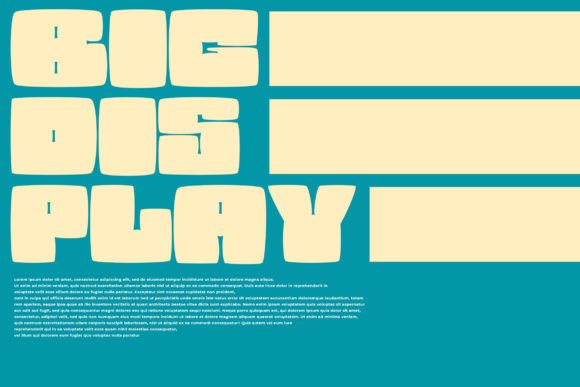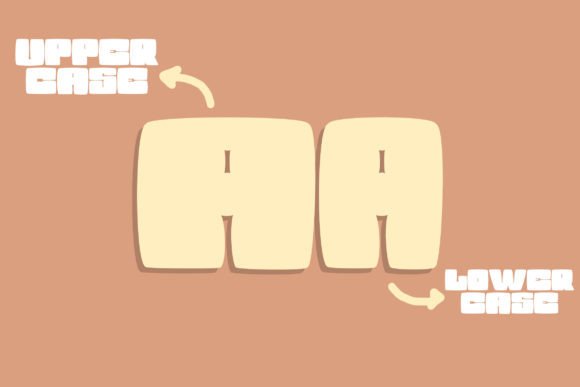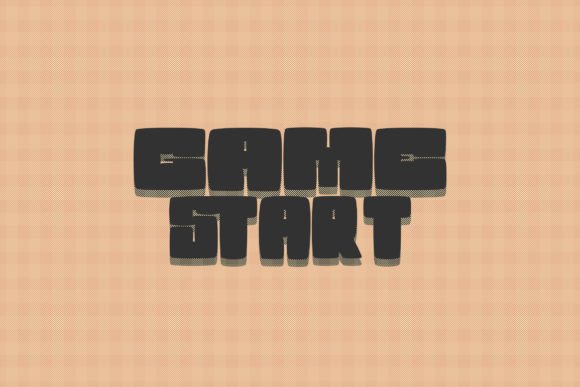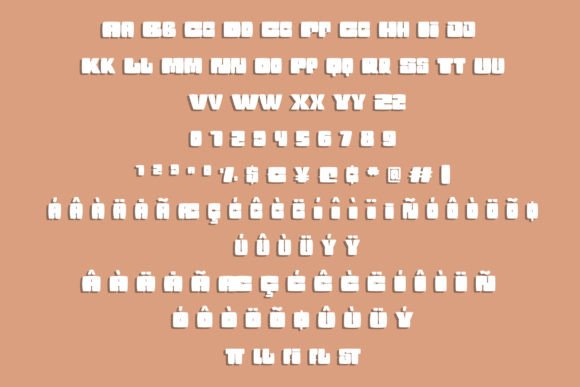
The Perfect Font for Your Next Design Project
Have you ever been brainstorming ideas for a new design project, and suddenly, a burst of creativity strikes you? Maybe it’s the perfect logo concept, or the ideal color palette. For many designers, this moment is the spark that sets their imagination ablaze. For me, it was the moment I stumbled upon the Boteka Font.
With its playful, big letters, Boteka Font is the perfect addition to any design project. Suitable for t-shirts, branding, social media, and more, this display font is a versatile and fun tool for designers. Whether you’re working on a bold, eye-catching campaign or a whimsical, hand-drawn illustration, Boteka Font is sure to bring a touch of personality to your work.
Boteka Font Key Features
- Size: The font family includes a range of weights, from Light to Bold, providing flexibility for various design applications.
- Unique Characteristics: Boteka Font features a unique blend of modern and traditional elements, making it suitable for a wide range of design projects, from corporate identities to creative expressions.
- Language Support: Boteka Font supports a wide range of languages, including Latin, Cyrillic, and Greek scripts, making it a versatile choice for global design projects.
- Kerning and Ligatures: The font includes advanced kerning and ligature pairs, ensuring smooth text rendering and a professional appearance.
Boteka Font Review
Overall, I was really excited to dive into the Boteka Font. At first glance, it seems like a unique and intriguing choice for designers. Let’s take a closer look.
- The Boteka Font has a distinctive, hand-drawn feel that can add a lot of personality to a project.
- The font is highly customizable, with a wide range of weight and style options available.
- The Boteka Font may not be the best choice for body text, as it can be quite difficult to read in certain contexts.
- The font’s unique design can sometimes feel gimmicky or overused.
Overall, I think the Boteka Font is a solid choice for designers looking to add a touch of personality to their work. While it may not be the best choice for every project, it can be a great addition to the right design.
The Boteka font is a modern, sans-serif font that is perfect for digital designs, such as:
- Social media graphics
- Infographics
- Business cards and resumes